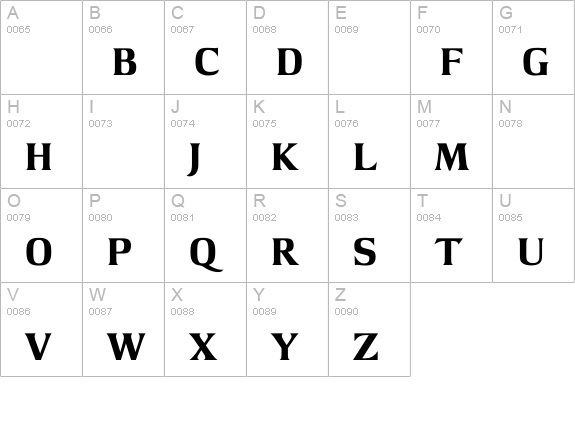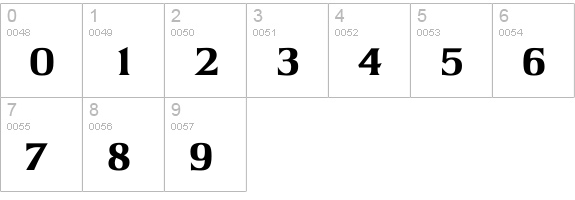
ArgusExtraBold Font Details
ArgusExtraBold is a bold and commanding font that exudes strength and confidence. With its thick, powerful strokes and sharp angles, this font makes a bold statement in any design project. Ideal for headlines, logos, and attention-grabbing text, ArgusExtraBold demands attention and leaves a lasting impression. What makes ArgusExtraBold even more appealing is that it is available for free download at FontsMarket.com. This means that you can easily access this dynamic font and incorporate it into your projects without any cost. Whether you're working on a branding project, a poster design, or any other creative endeavor, ArgusExtraBold is a versatile and impactful choice that will elevate your work to the next level. Download it today and unleash the boldness of ArgusExtraBold in your designs.